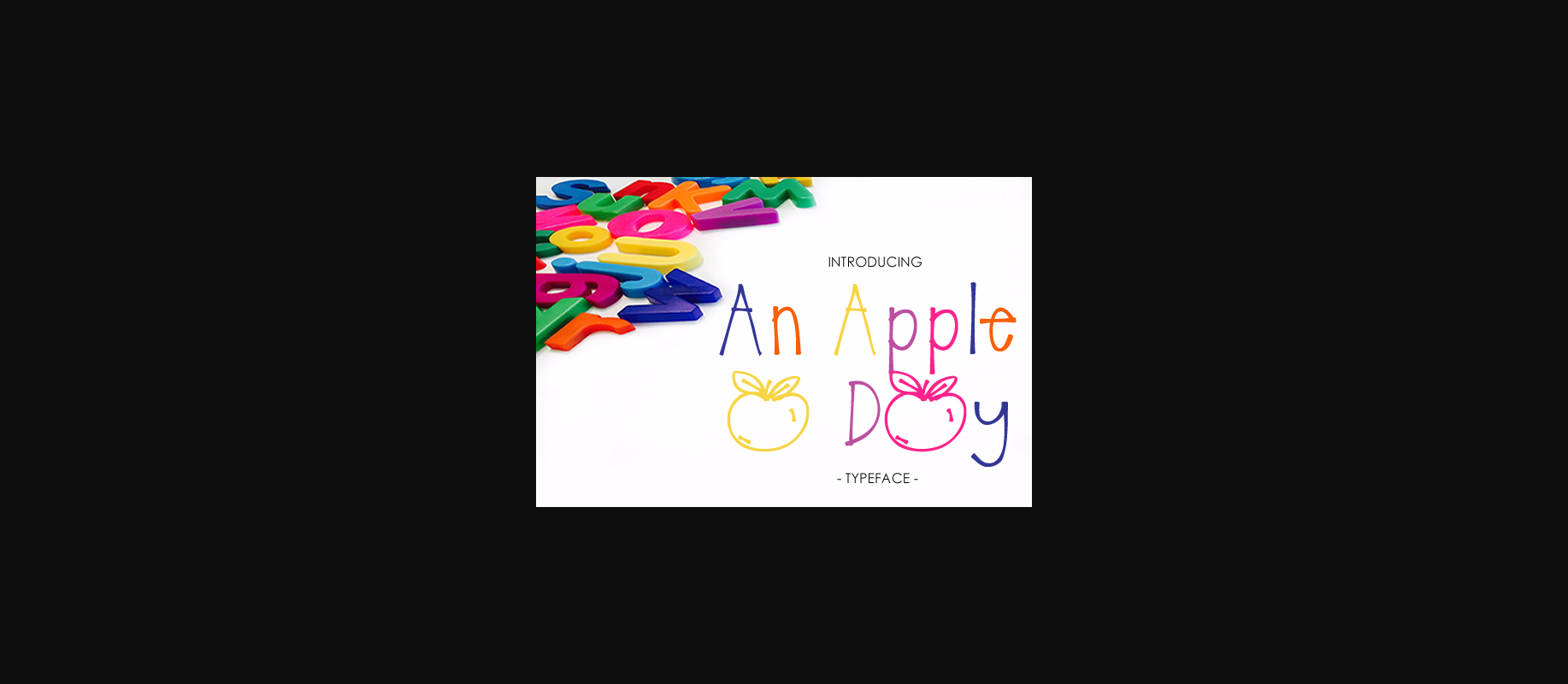
About An Apple a Day Font
An Apple A Day is a fun, handwritten sans serif that will look perfect in a wide range of children’s oriented designs and more! This font reads well, and adds a lighthearted charm to any type of project.